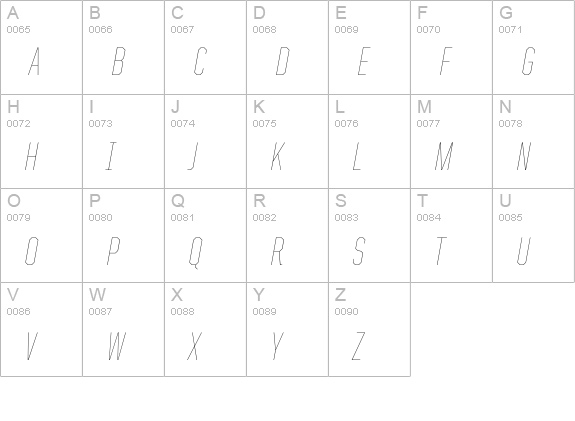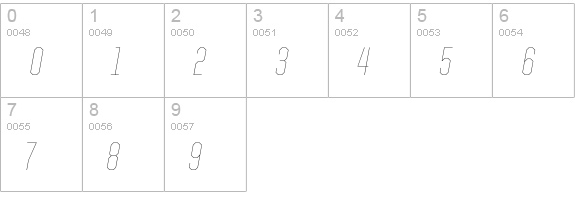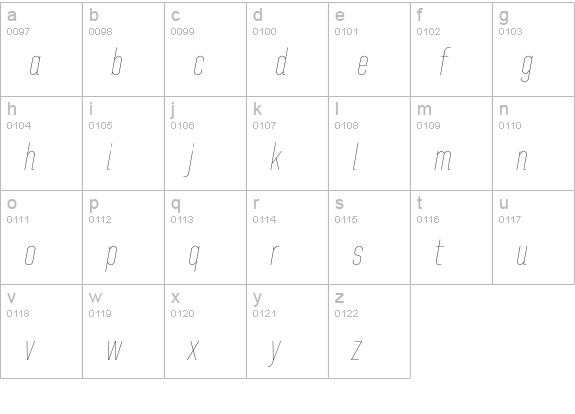
United Italic Cond Thin Font Details
United Italic Cond Thin is a delicate, low-contrast, condensed-width, italic variant in the United typeface family \xE2\x80\x94 well suited to fashion editorial, minimal branding, and high-contrast display.
Introducing United Italic Cond Thin, a sleek and sophisticated font that effortlessly combines elegance with modernity. This typeface exudes a sense of refined style, making it the perfect choice for any design project that requires a touch of sophistication. With its thin strokes and condensed letterforms, United Italic Cond Thin offers a unique balance of delicacy and legibility. Each character is meticulously crafted, resulting in a font that is both visually stunning and highly functional. United Italic Cond Thin is not only visually appealing, but also highly versatile. Whether you are designing a logo, creating a poster, or crafting a website, this font will effortlessly elevate your work to new heights of elegance and professionalism. And the best part? United Italic Cond Thin is available for free download at FontsMarket.com. You can easily access this stunning font and start using it in your projects right away, without any restrictions or limitations. FontsMarket.com offers a wide range of high-quality fonts, and United Italic Cond Thin is just one of the many gems waiting to be discovered. So why wait? Embrace the beauty and versatility of United Italic Cond Thin and take your designs to the next level. Download it for free at FontsMarket.com and unlock a world of creative possibilities.